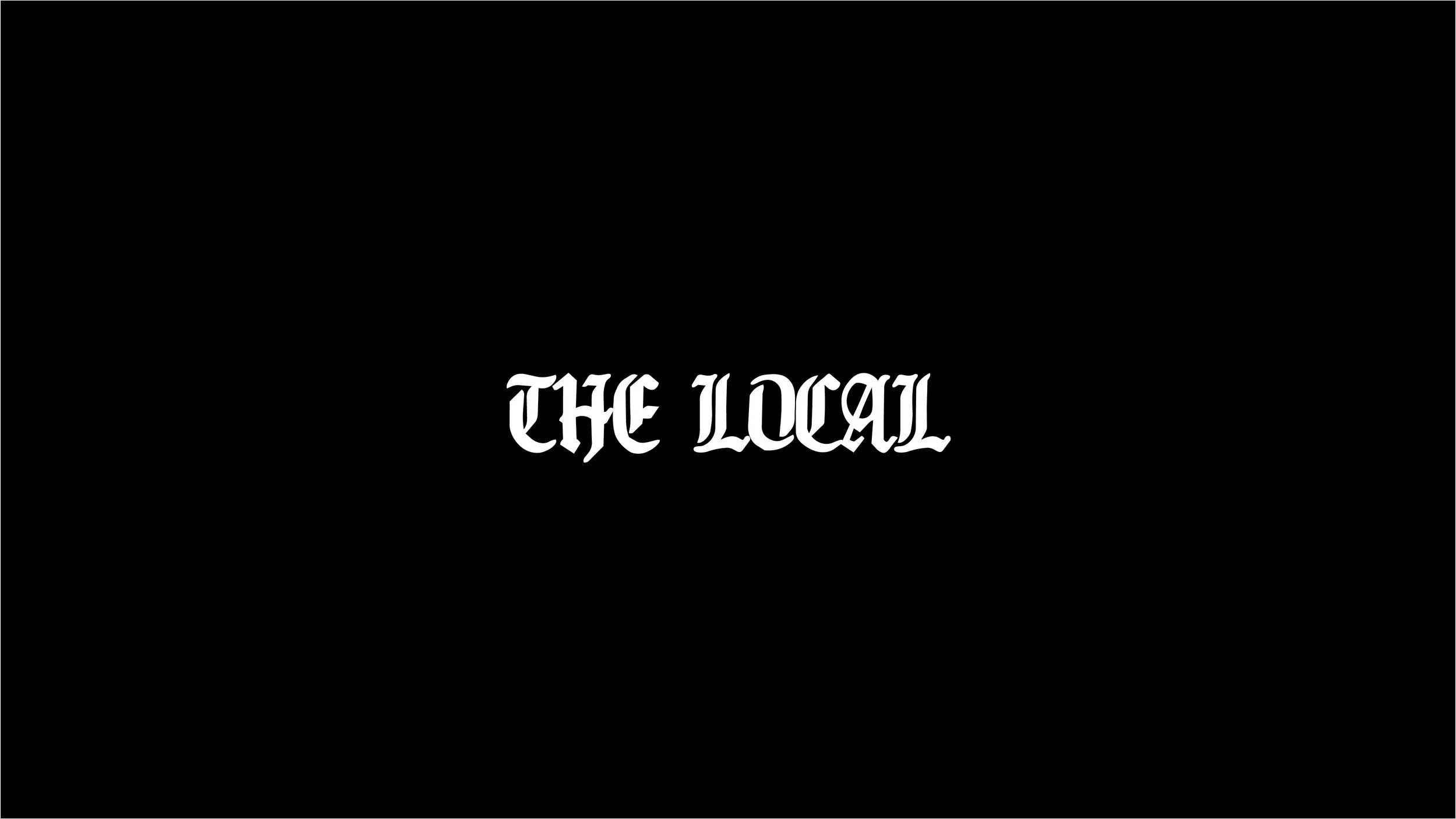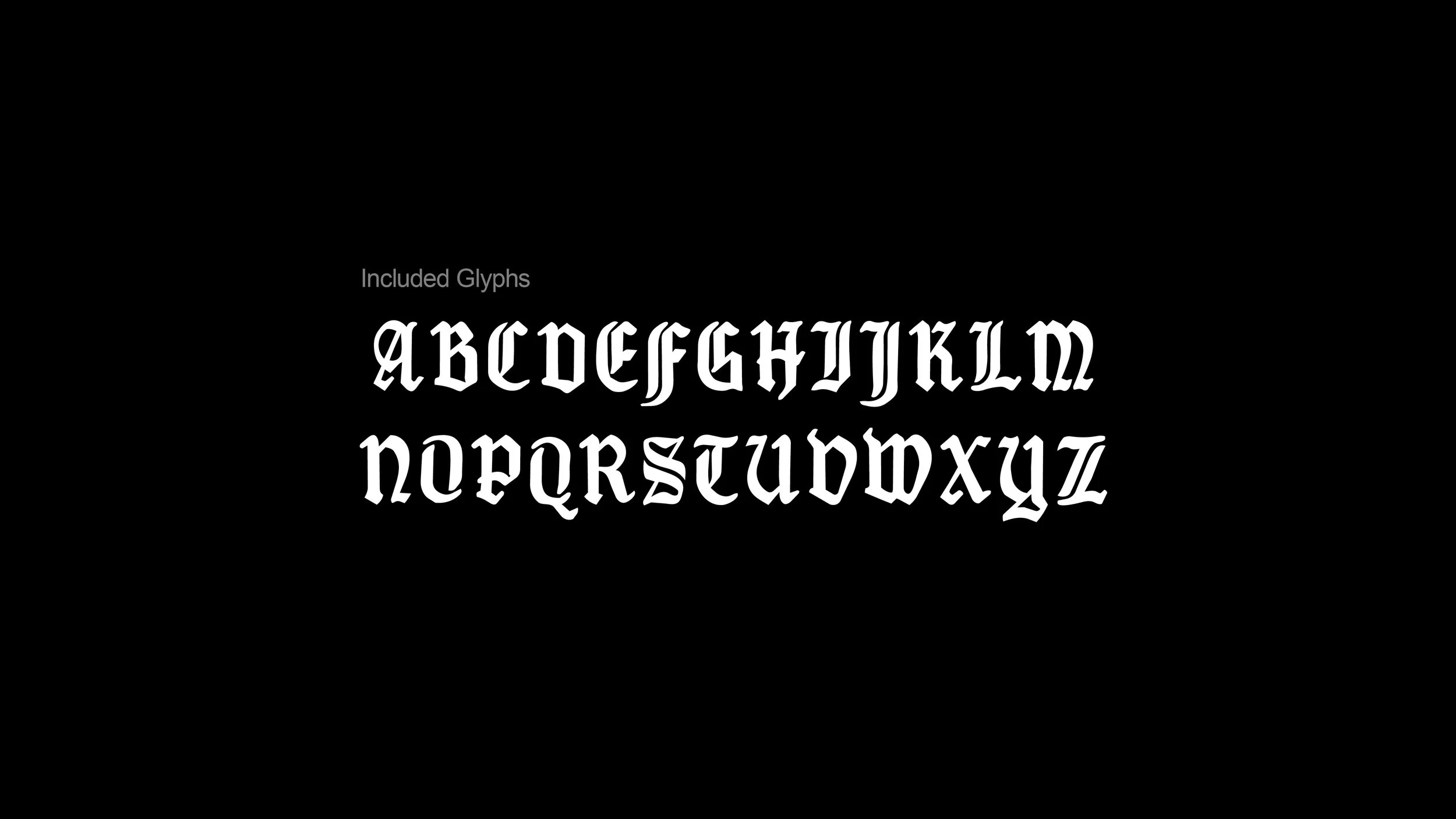
“The Local” is a cheeky, hand-drawn take on classic Old English lettering. Rounded corners give it a more contemporary feel. Perfect for a few pints with the lads at the local. Cheers.
Name: The Local